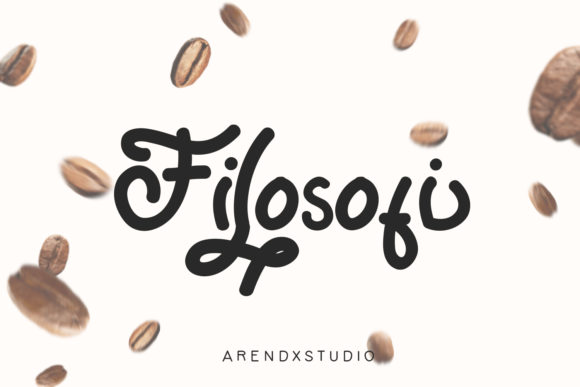
Journey into the realm of captivating typography with Filosofi, a light and charming handwritten font family crafted by Arendxstudio. This exquisite collection of scripts will infuse your designs with an authentic spark, inviting your audience to immerse themselves in a world of creative expression.
Embrace the allure of Filosofi's elegant curves, effortlessly flowing characters, and playful ligatures. Discover the magic as your words dance across the page, captivating your audience with a sense of timeless beauty. Whether you're crafting heartfelt invitations, designing bespoke logos, or adding a touch of whimsy to social media posts, Filosofi will elevate your creations to new heights of artistry.
Unleash your creativity with Filosofi's versatility. Its diverse range of styles, from classic to contemporary, empowers you to craft designs that resonate with your unique vision. Experiment with bold headlines, delicate body text, or eye-catching branding elements. Each character carries a story, ready to be woven into your creative tapestry.
Step into the world of Filosofi and uncover a treasure trove of endless possibilities. Let your imagination soar as you explore the depths of this enchanting font family. Craft designs that captivate, inspire, and leave a lasting impression. Embrace the beauty of handwritten artistry and embark on a creative journey like no other.